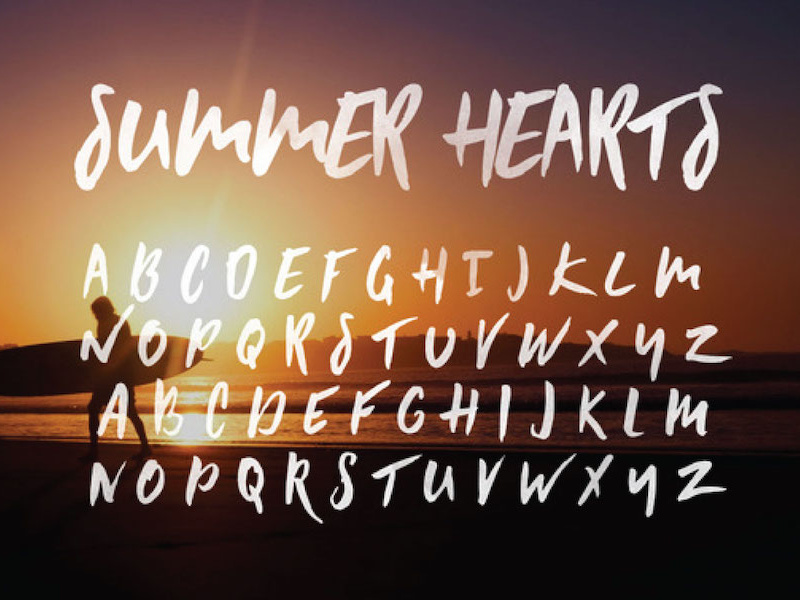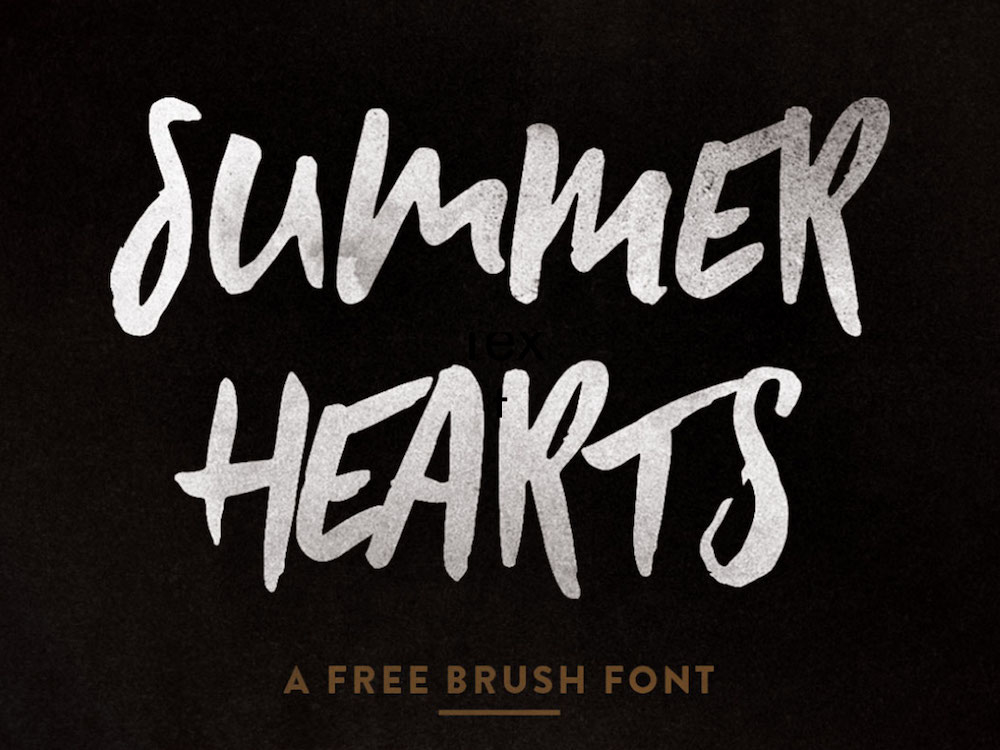
Summer Hearts Font
Right here is the Summer Hearts Font that is considered because the best text generator, that is rather utilized in adobe and additionally broadly utilized in industrial use. With this font‚Äôs beneficial spacing and high-quality device, that looks as luckiest guy font you can without a hassle create any designs of your choice at the manner to provide gold-well-known satisfactory and legibility. It’s miles appreciably used for loads of packages noticeably for signage and others rent alike. You’ll see that masses of pinnacle-notch factors that this font shape can present and it has loads of font weights to be had as well.
Summer Hearts Font Free This font component an italic, hand-drawn, formidable texture. Terrific for any headline or titling functions. This font is also appeared due to the incredibles font for text. It seems like a thunderstorm font and aqua font.